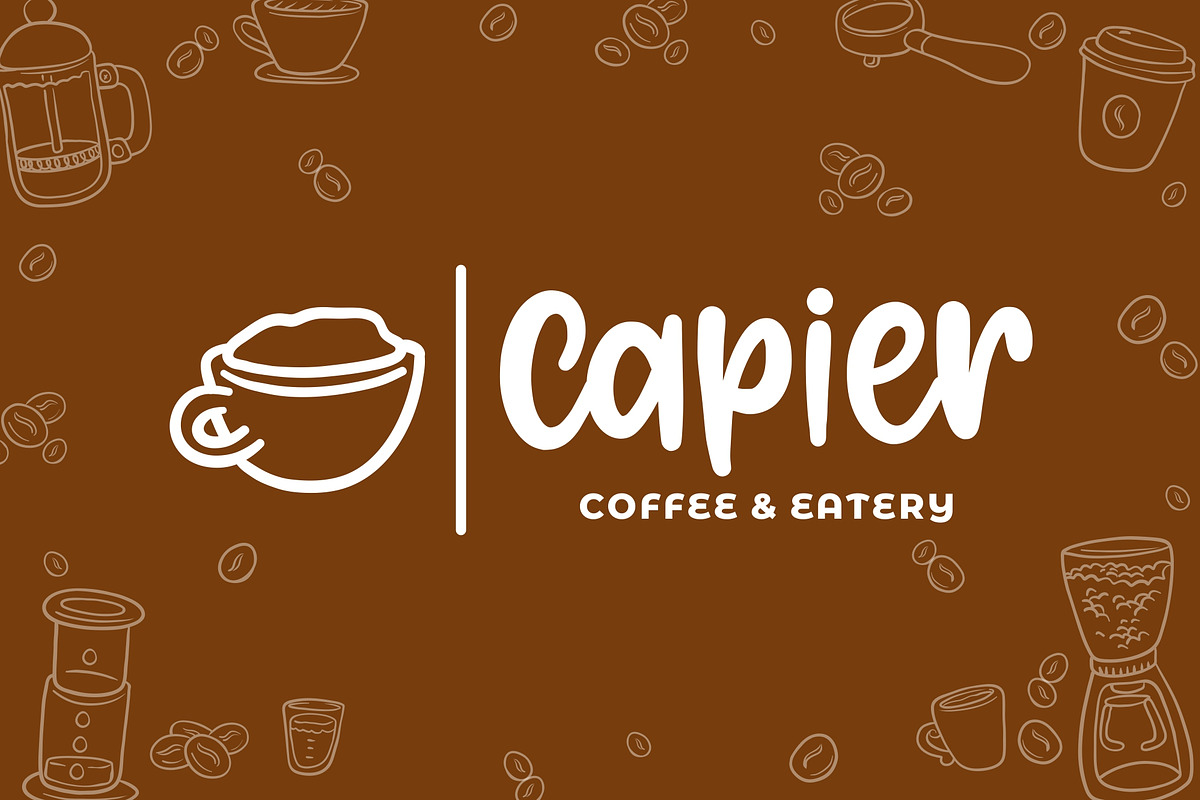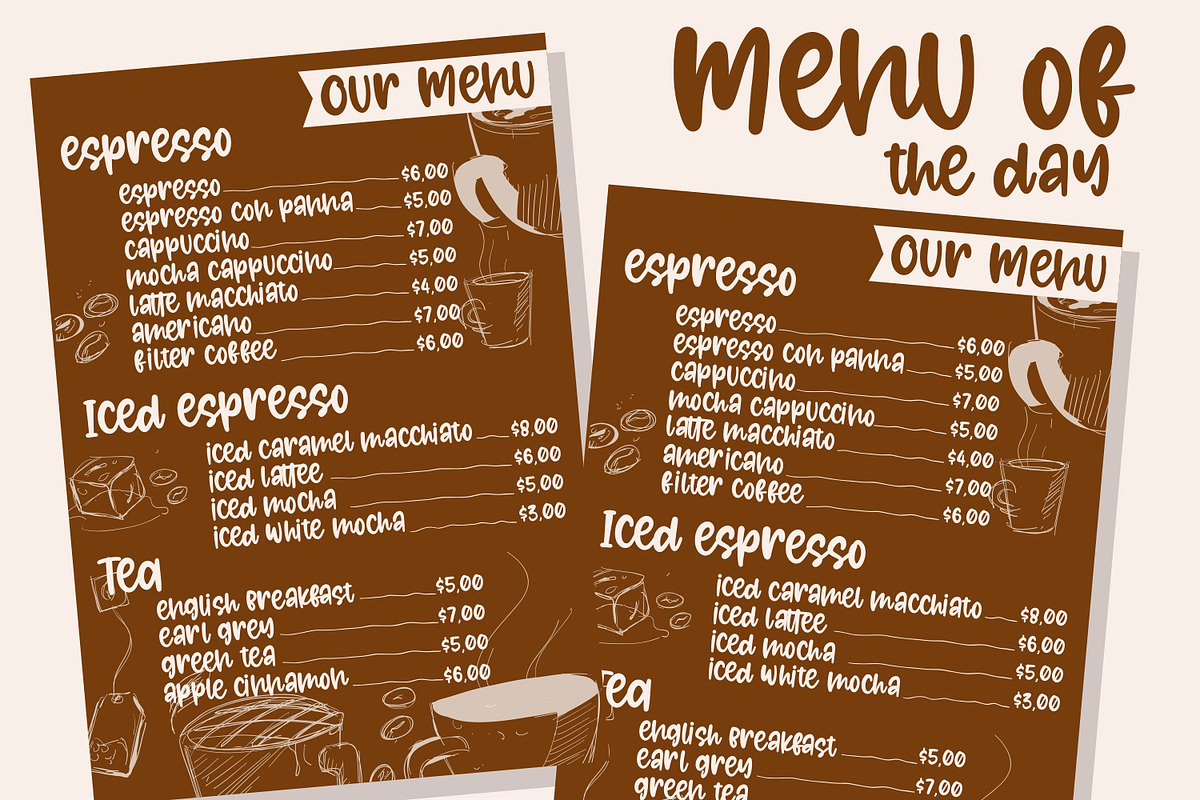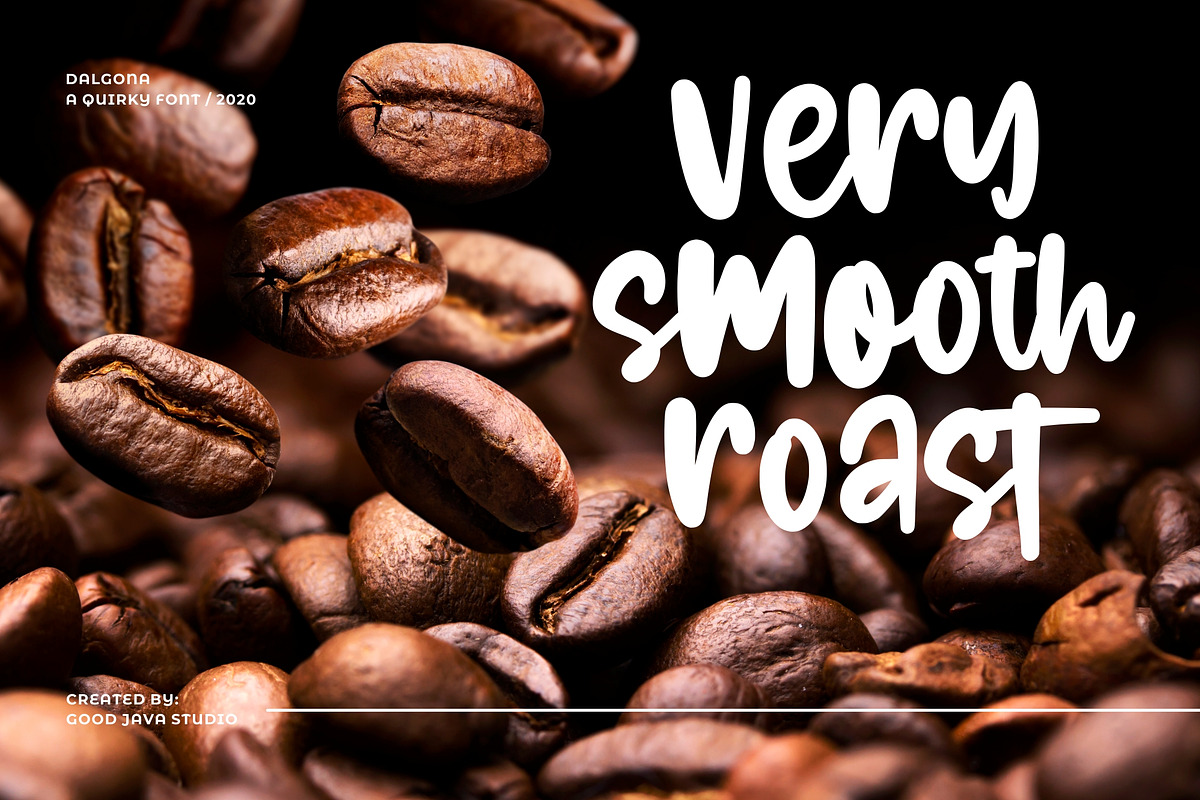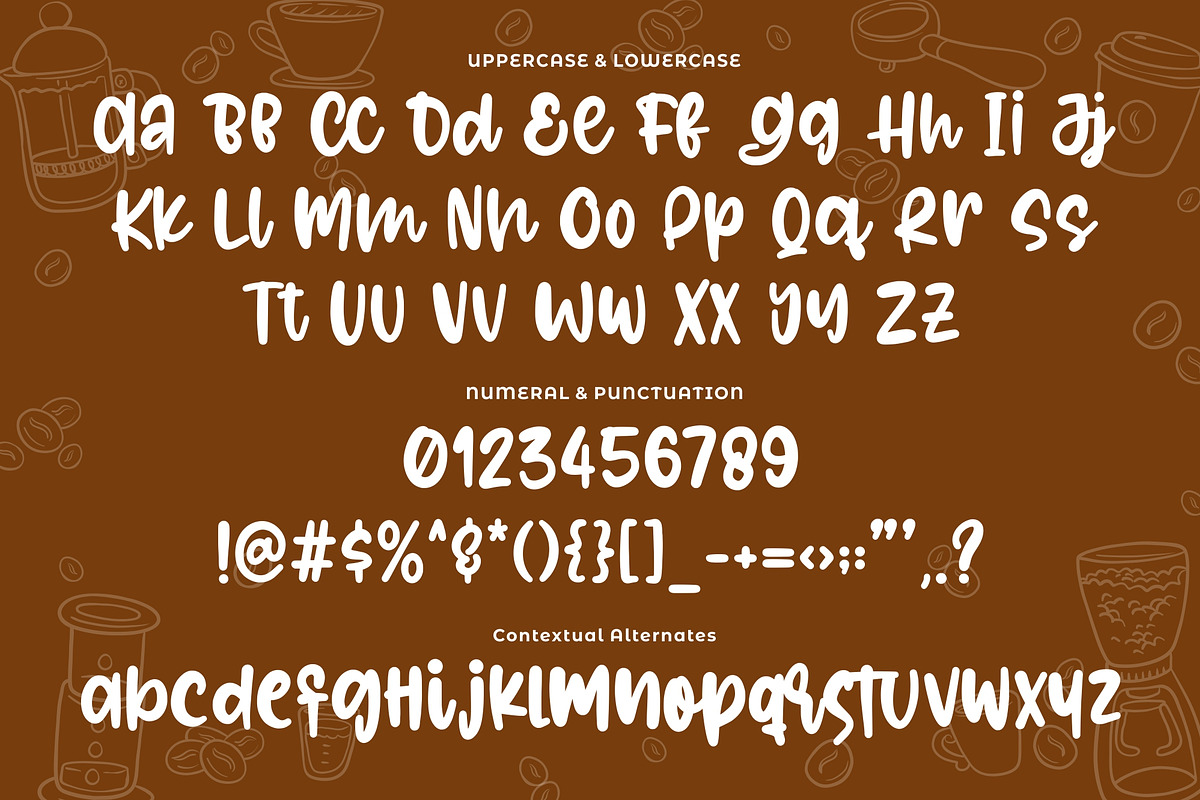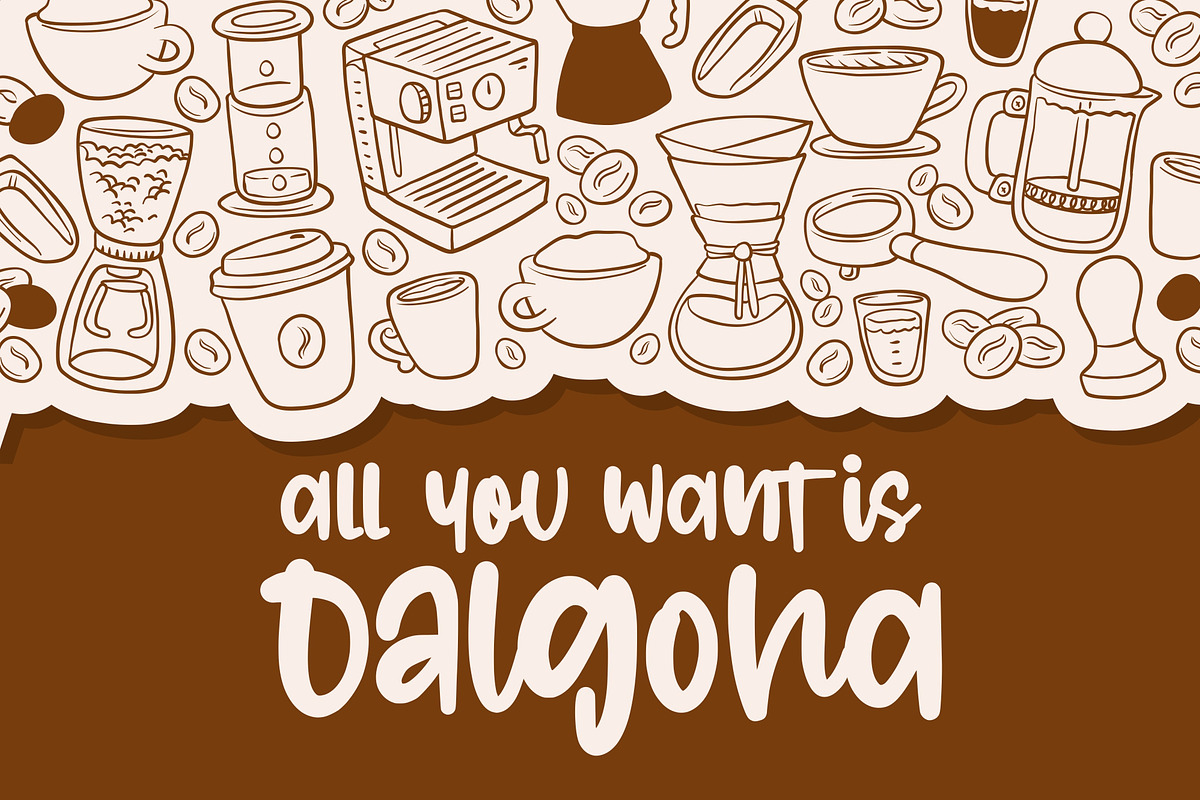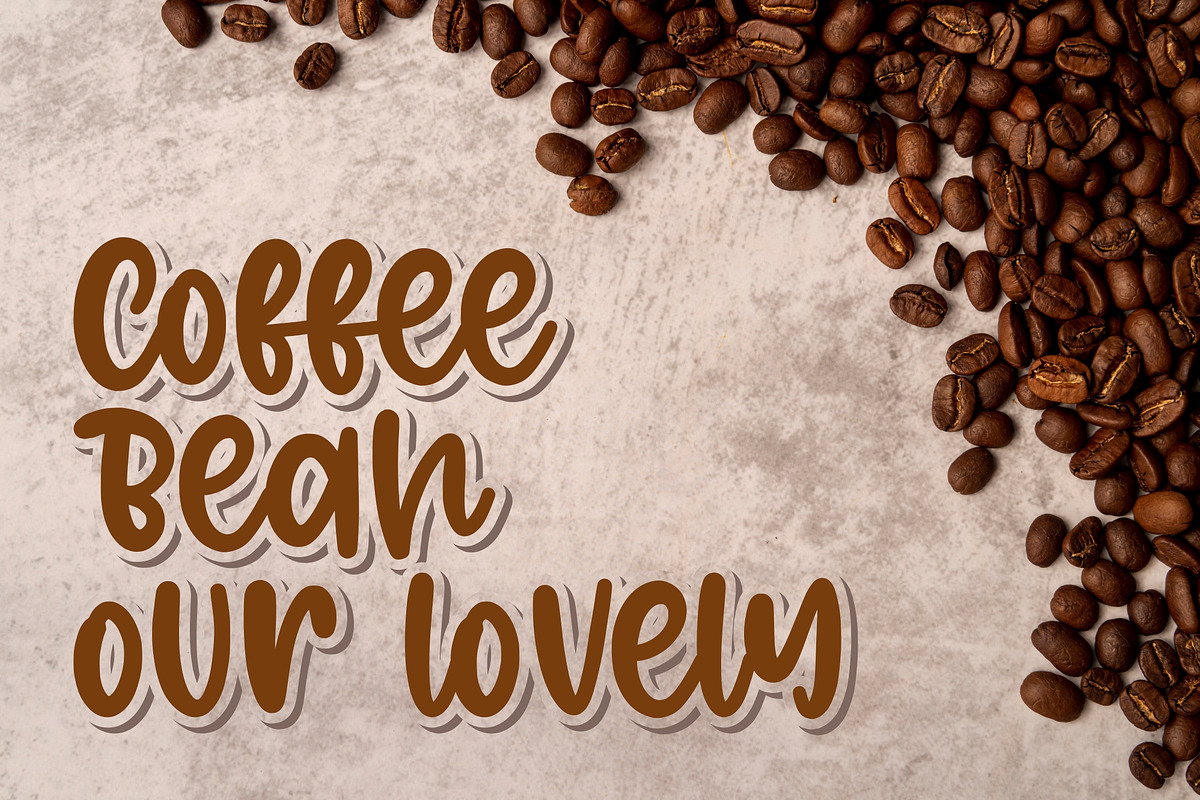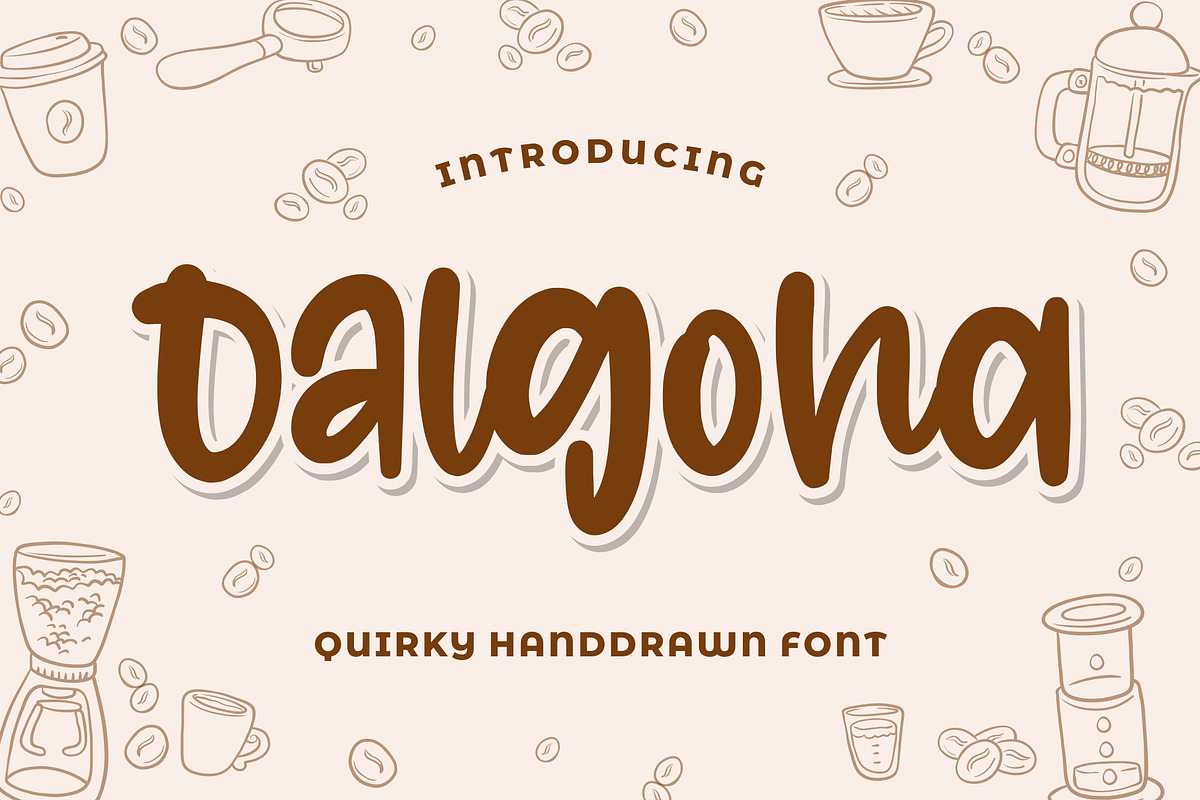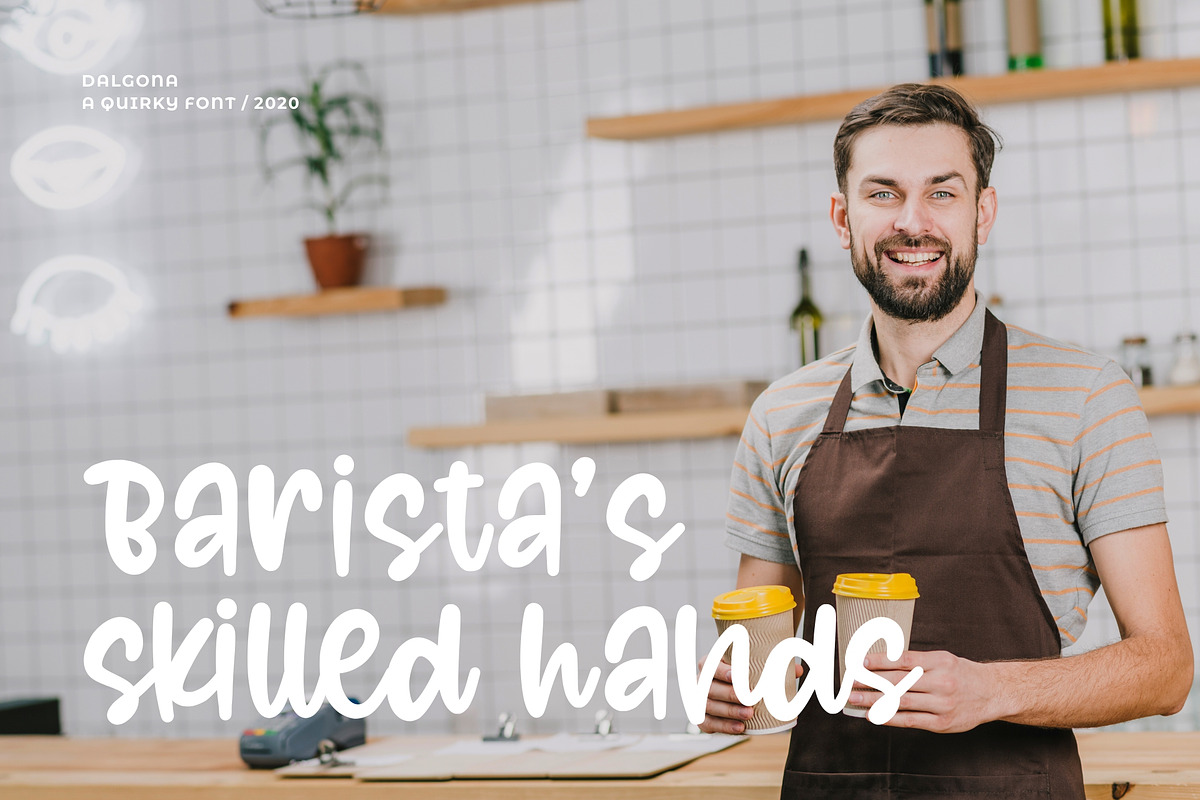
Dalgona - Quirky Font
Introducing Dalgona - Quirky Font
Dalgona is the perfect font for all your fun designs. The main font file is equipped with ordinary characters. Everything is made with the funny brush. So you can be sure they will work well together! It is suitable for you to use in making t-shirt design, quote, label, packaging, logo type, or long writing. Because we have compiled kerning and matrices that are tailored to your needs.
Opentype Features (Contextual Alternates, Stylistic Sets and Ligatures)